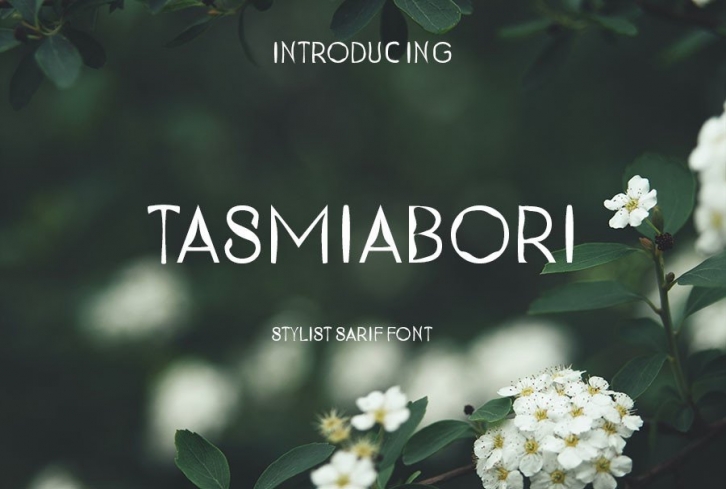
Tasmiabori is a bold and beautiful display font with an incredibly authentic feel. This unique font will effortlessly turn any design project into a stand out!